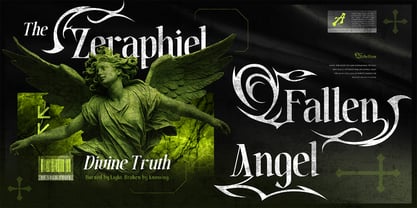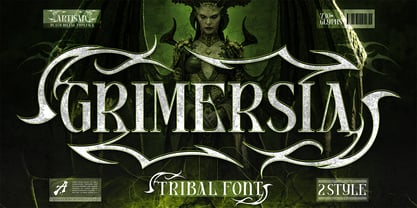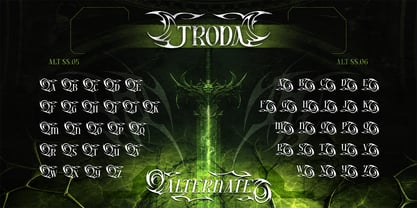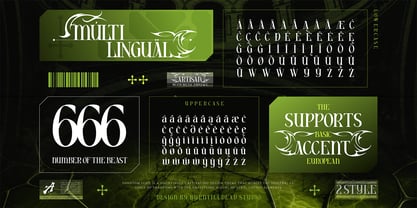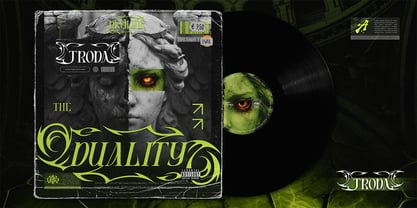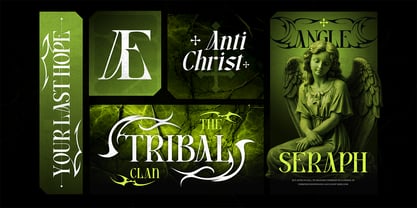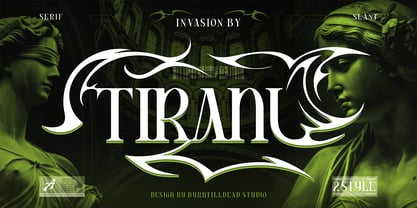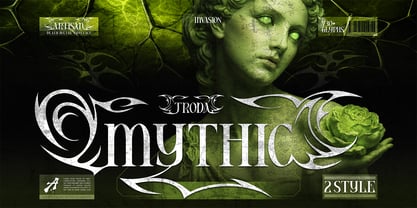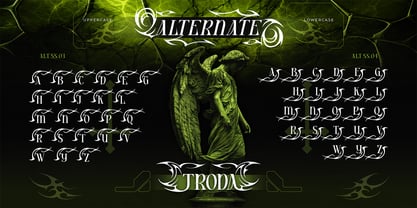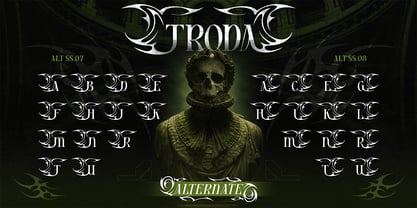
Grimersia
by Artisan Themes
The Grimersia Font Family was designed by Meidy Meichico and published by Artisan Themes. Grimersia contains 2 styles and family package options. More about this family
Grimersia is a bold serif typeface inspired by tribal aesthetics, dark mythology, and gothic art. It blends sharp serif structure with aggressive ornamental swashes, creating a dramatic and powerful look. This font feels sacred yet rebellious. Perfect for designs that want to look intense, mysterious, and unforgettable. With its strong letterforms and tribal-style alternates, Grimersia gives your typography a unique character — sharp, elegant, and slightly dangerous. It comes with 2 styles and multiple alternate characters, allowing you to create dynamic wordmarks, logos, and striking headlines. Perfect For: Album covers (metal, rock, dark electronic), Gothic branding, Tattoo-inspired designs, Streetwear & edgy fashion labels, Poster and merchandise design, Tribal-themed projects, Mythic / fantasy visuals
Designers: Meidy Meichico
Foundry: Artisan Themes